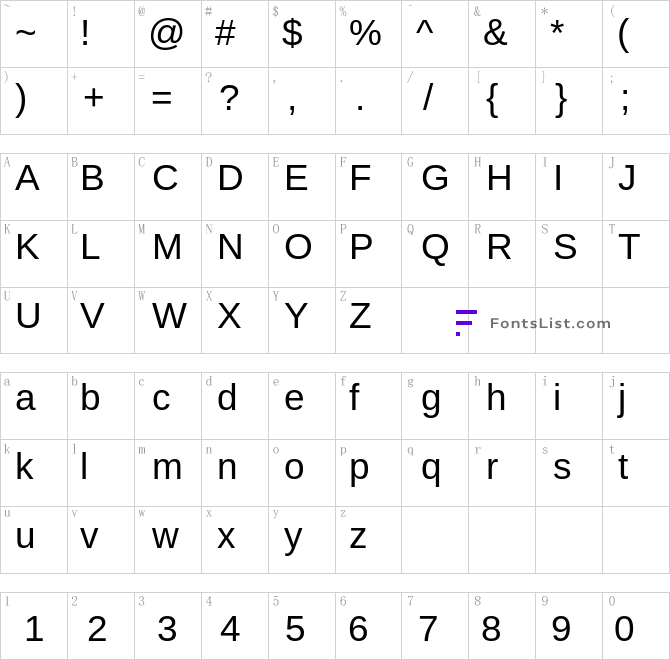
- Font Name:Arimo
Arimo-copy-1-.ttf is a very beautiful artistic font, Arimo-copy-1-.ttf is widely used in the design and printing of various books and pictures,Arimo-copy-1-.ttf has a strong visual impact,Arimo-copy-1-.ttf is a commonly used font in newspapers, magazines and books, and is used in posters, e-commerce Poster design, store design, logo design, font design and other fields.Arimo-copy-1-.